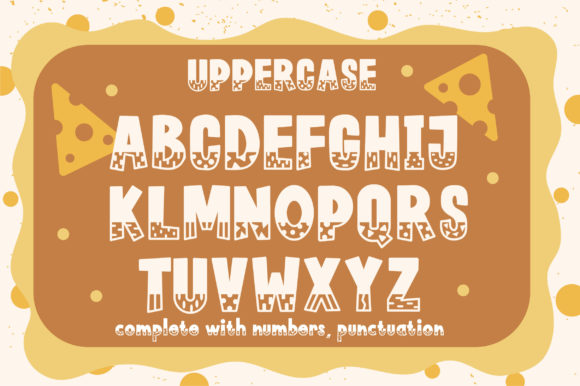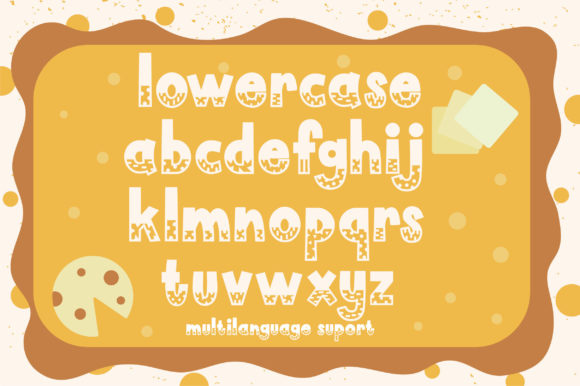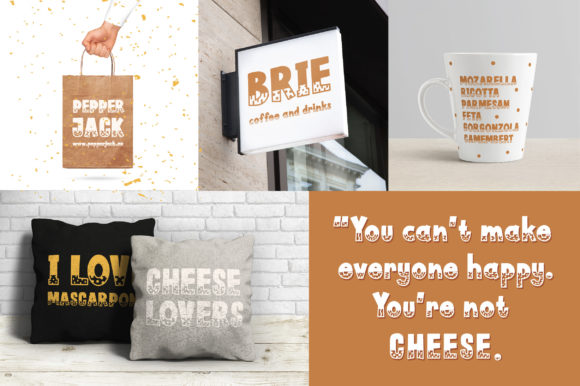
The Perfect Font for a Gouda Time
Who hasn’t felt the thrill of creating something with their own hands? Whether it’s a painting, a drawing, or a DIY project, the moment of bringing an idea to life is pure magic. For designers, it’s no different. We’re constantly on the lookout for the perfect tools to help us express our creativity and bring our visions to life.
Enter the Cheese Sandwich Font, a delightful decorative font that’s as fun as it is functional. This playful font is perfect for any children’s activity or school project, adding a touch of whimsy and authenticity to your designs. And for designers, it’s a valuable asset in their toolkit, offering a unique way to add personality to their work. Whether you’re creating a kids’ book, a party invitation, or a social media graphic, the Cheese Sandwich Font is sure to be a hit.
Cheese Sandwich Font Key Features
- Unique Characteristics: Unique letterforms and flourishes that resemble a cheese sandwich, making it perfect for food-related branding and packaging
- Kerning and Ligatures: Includes custom kerning and ligature pairs to enhance readability and aesthetics
Review of Cheese Sandwich Font
Overall, I think the Cheese Sandwich Font has some interesting qualities, but it’s not without its limitations. Let’s dive in and see what I mean!
- The font has a unique, playful feel that could work well for casual projects, such as food blogs or social media graphics.
- The letterforms are quite bold and attention-grabbing, which could be useful for headings or titles.
- The font includes a range of punctuation and symbol glyphs, which is a plus.
Limited by… ⚠️
- The font lacks the polish and refinement that I’d expect from a production-ready typeface. Some letterforms feel a bit rough around the edges.
- The font’s playfulness may come across as kitschy or gimmicky to some users, which could be a turn-off.
- The font doesn’t include a comprehensive character set, which might limit its usability in certain contexts.
I’d say the Cheese Sandwich Font is an intriguing, but ultimately unfinished product. With some further refinement and expansion, it could be a solid choice for certain projects. As it stands, I’d recommend using it sparingly or as a novelty element.
The Cheese Sandwich Font is perfect for:
- Food branding and packaging design.
- Children’s book illustrations and design.
- Playful and whimsical advertising campaigns.
Alternatives to “Cheese Sandwich Font” for Designers
Great Vibes is a beautiful, handwritten script font that is perfect for adding a touch of elegance and sophistication to your designs. It’s ideal for use in wedding invitations, menus, and other creative projects where a personal touch is desired.
Compared to Cheese Sandwich Font, Great Vibes has a more refined and polished look, making it a better choice for high-end designs. While Cheese Sandwich Font has a playful, casual feel, Great Vibes is more suitable for formal or upscale projects.
Carolyna Pro is a modern, elegant script font that is perfect for use in fashion, beauty, and lifestyle brands. Its sleek, sophisticated lines make it ideal for use in logos, branding materials, and advertising campaigns.
Compared to Cheese Sandwich Font, Carolyna Pro has a more contemporary and polished look, making it a better choice for modern and trendy designs. While Cheese Sandwich Font has a more casual, playful feel, Carolyna Pro is more suitable for high-end fashion and luxury brands.